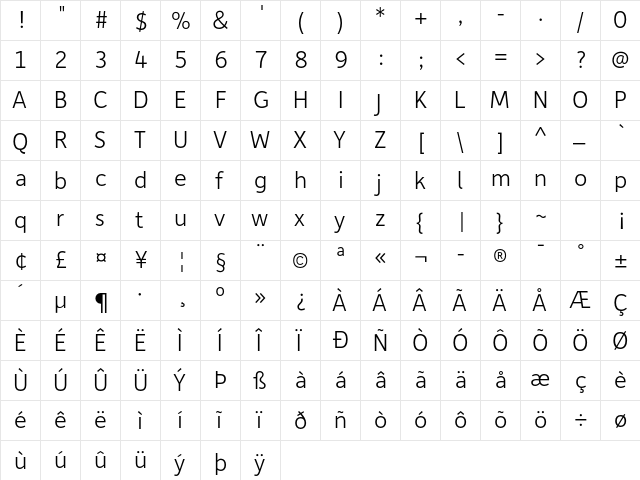
Depot Light
| Foundry | C.Dickinson |
| Designer | C.Dickinson |
Design Context for Depot Typeface
Depot takes a measured approach to typography — its balanced proportions and neutral character make it a reliable workhorse for both digital and print work. Its slender proportions lend an understated elegance to any composition.